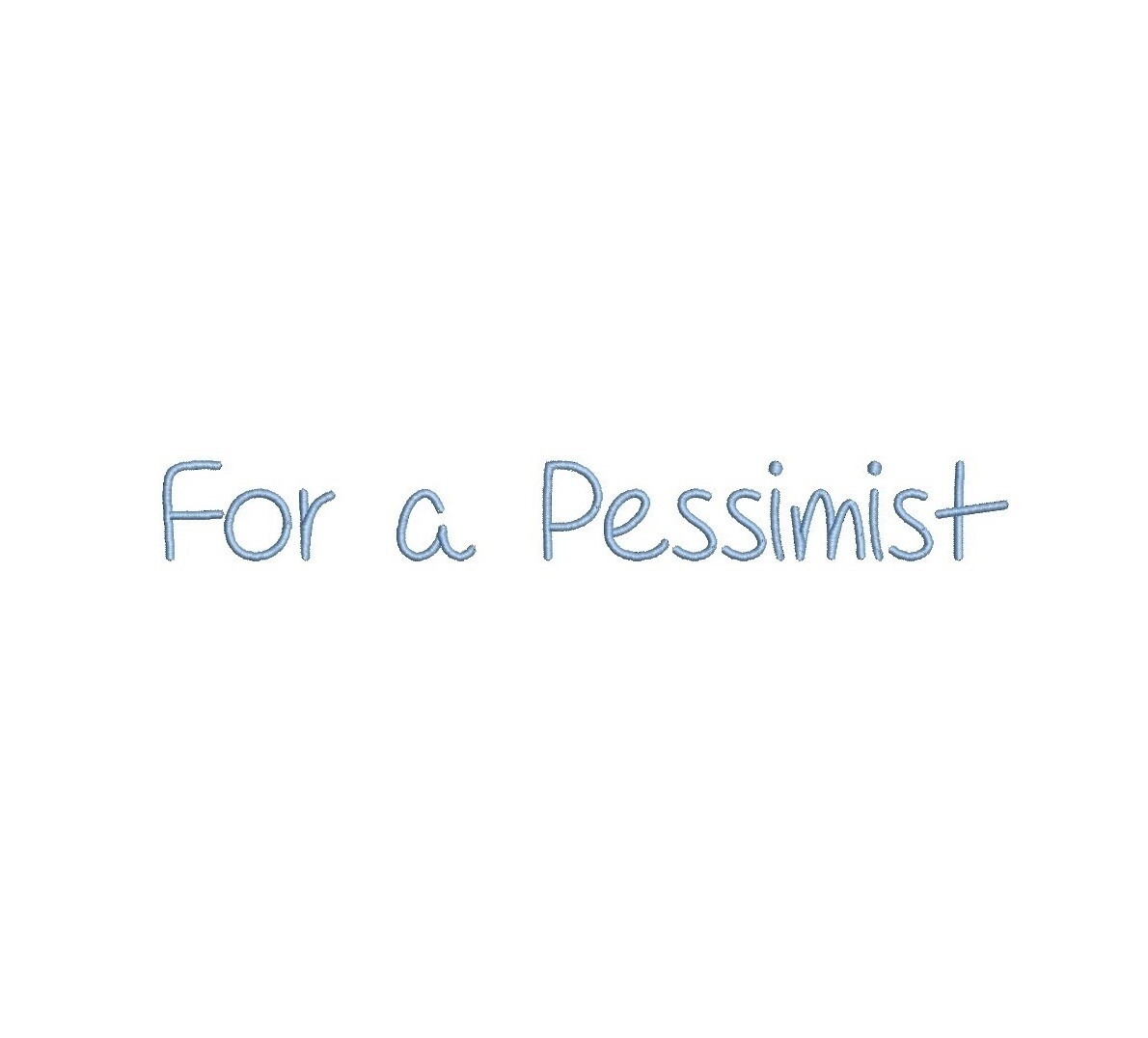
Welcome to the world of For a Pessimist Regular ESA font, where creativity meets attitude. This bold and edgy typeface adds a rebellious flair to your designs. Crafted with meticulous attention to detail, this premium font guarantees a seamless and enjoyable design experience. Compatible with Wilcom Studio e4.5.6 and Hatch 3 versions and up, it ensures smooth embroidery creation. Whether it's for rock-inspired projects, bold headlines, or unconventional branding, For a Pessimist Regular ESA font makes a statement. Embrace its attitude and let your designs defy conventions. Don't miss out on this distinctive gem; elevate your creations with its rebellious charm. Get it now and express yourself boldly.